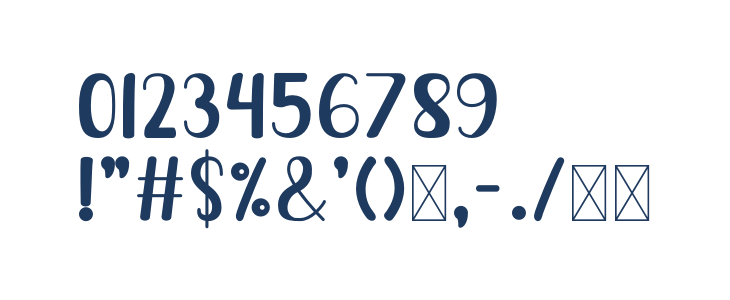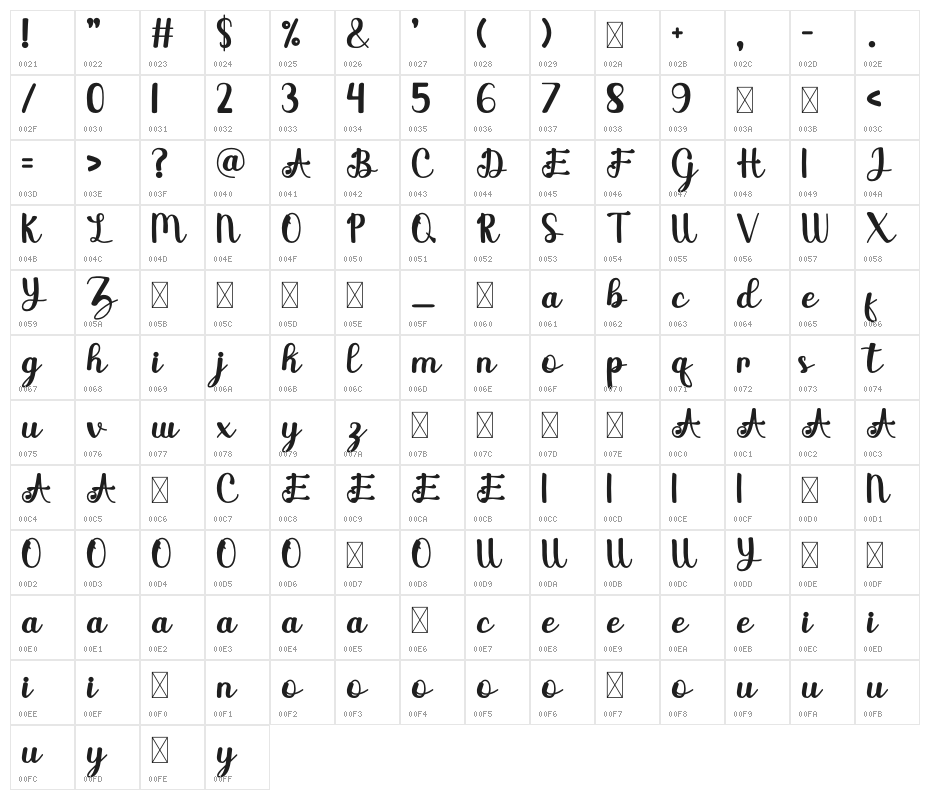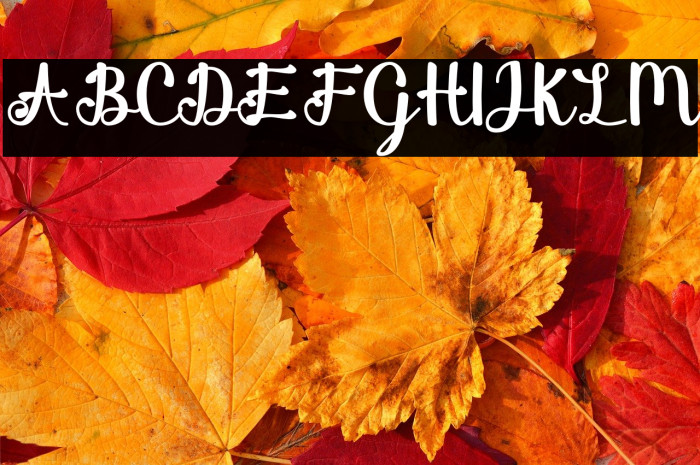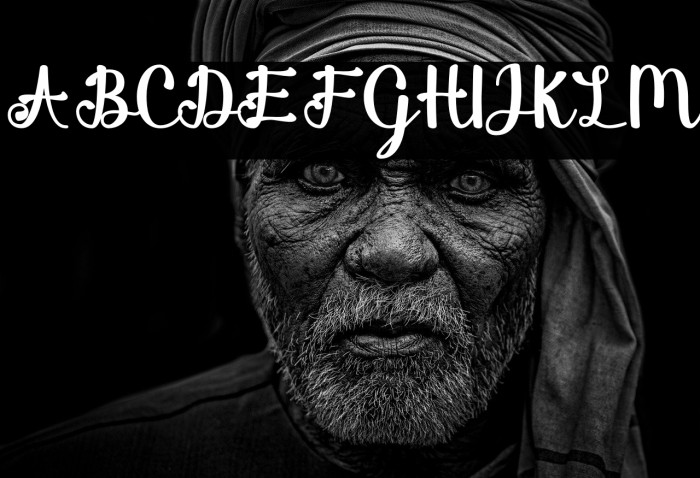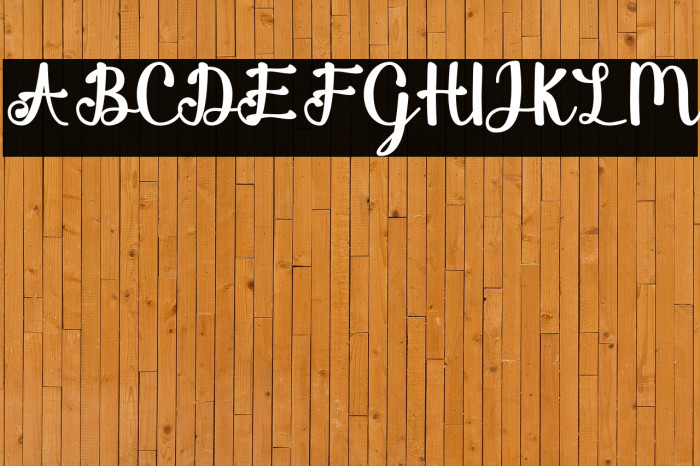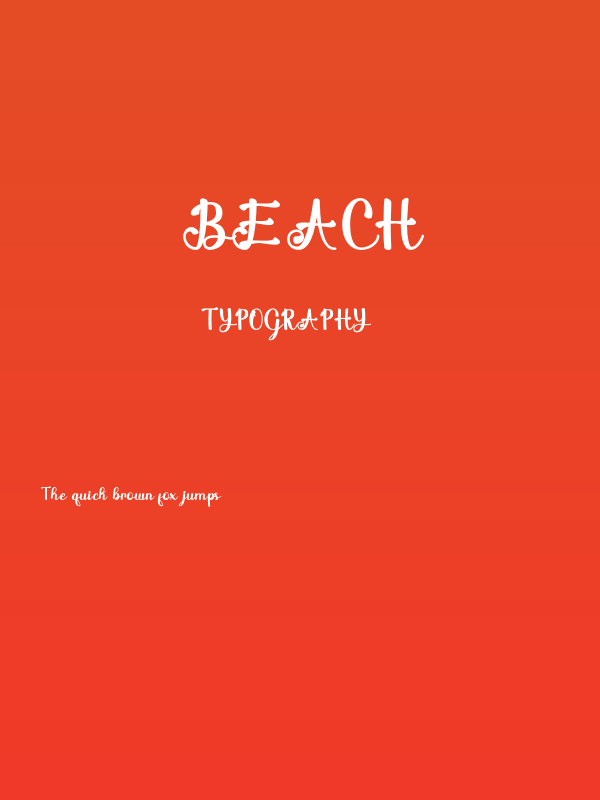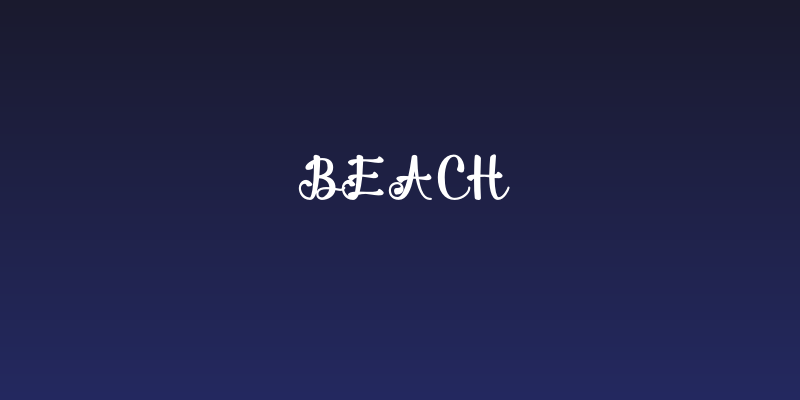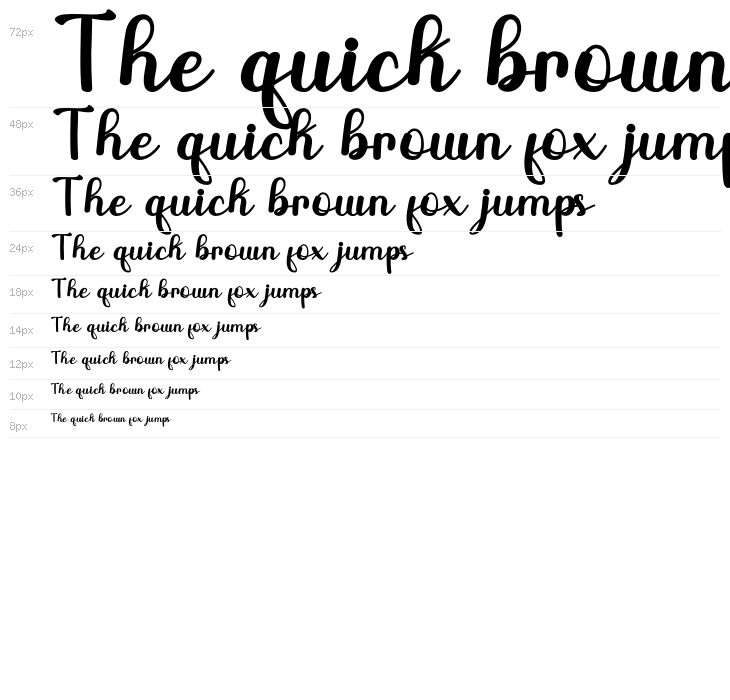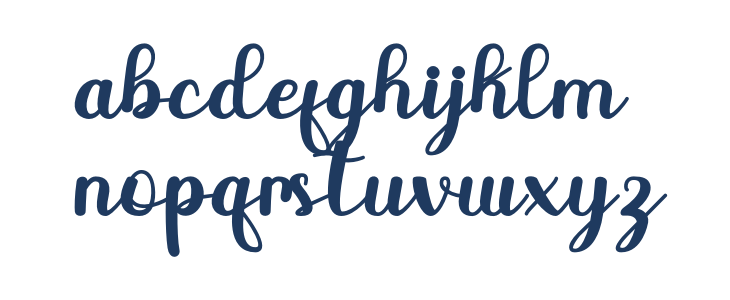
Beach Font
Beach Description
This font features a playful and lively script style, characterized by its flowing, cursive letters with a hand-drawn appearance. The uppercase letters are bold and ornate, with some letters featuring unique flourishes that add a whimsical touch. The lowercase letters maintain a consistent flow, enhancing readability while preserving the font's artistic flair. The numerals are bold and slightly rounded, complementing the overall style. Special characters are creatively designed, maintaining the font's cohesive look. This font's energetic and friendly vibe makes it suitable for a variety of creative projects.
| Use Case | Logos, Headlines, Invitations |
| Proposed Projects | Ideal for greeting cards, invitations, branding, and playful graphic designs. |